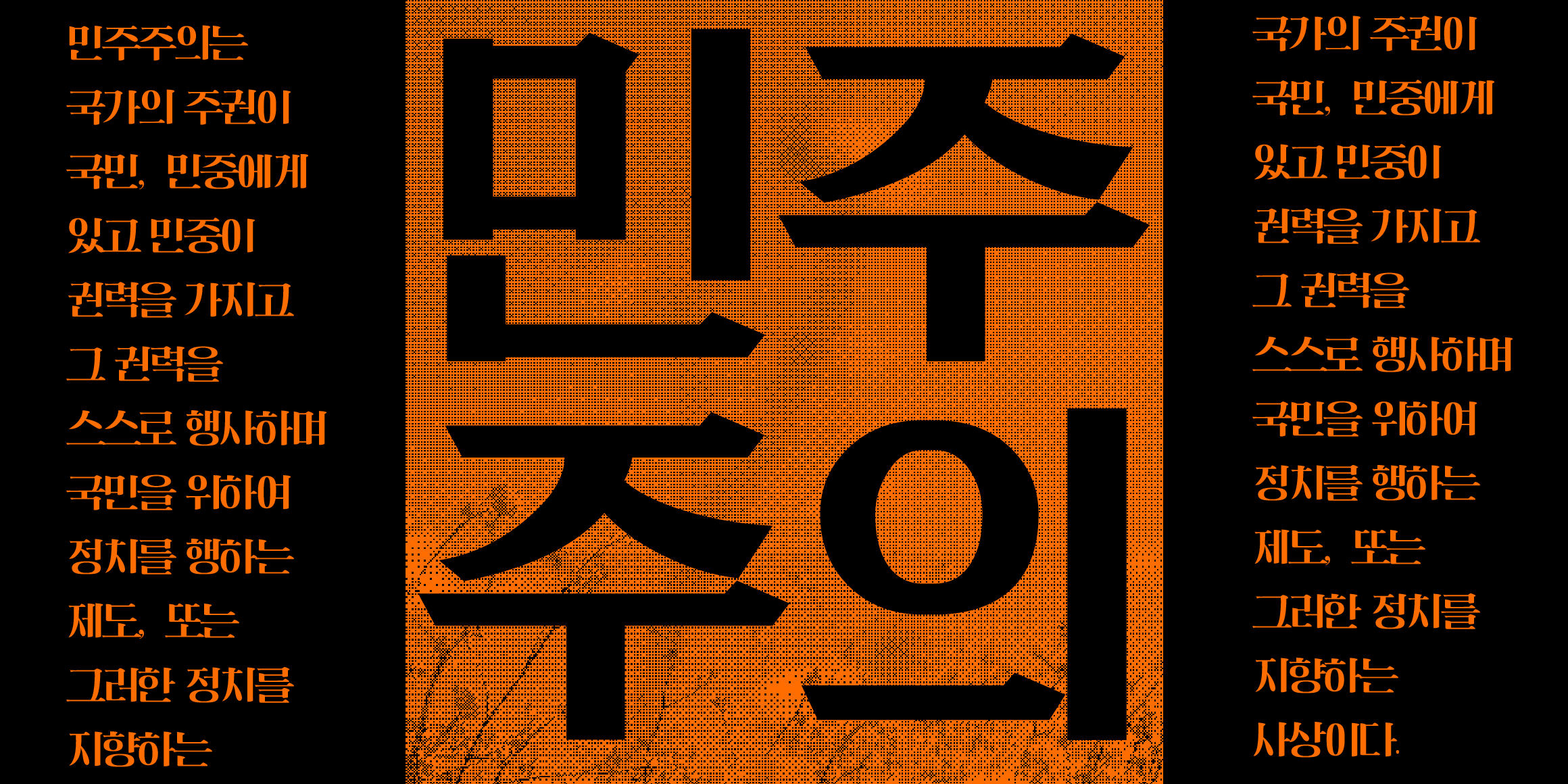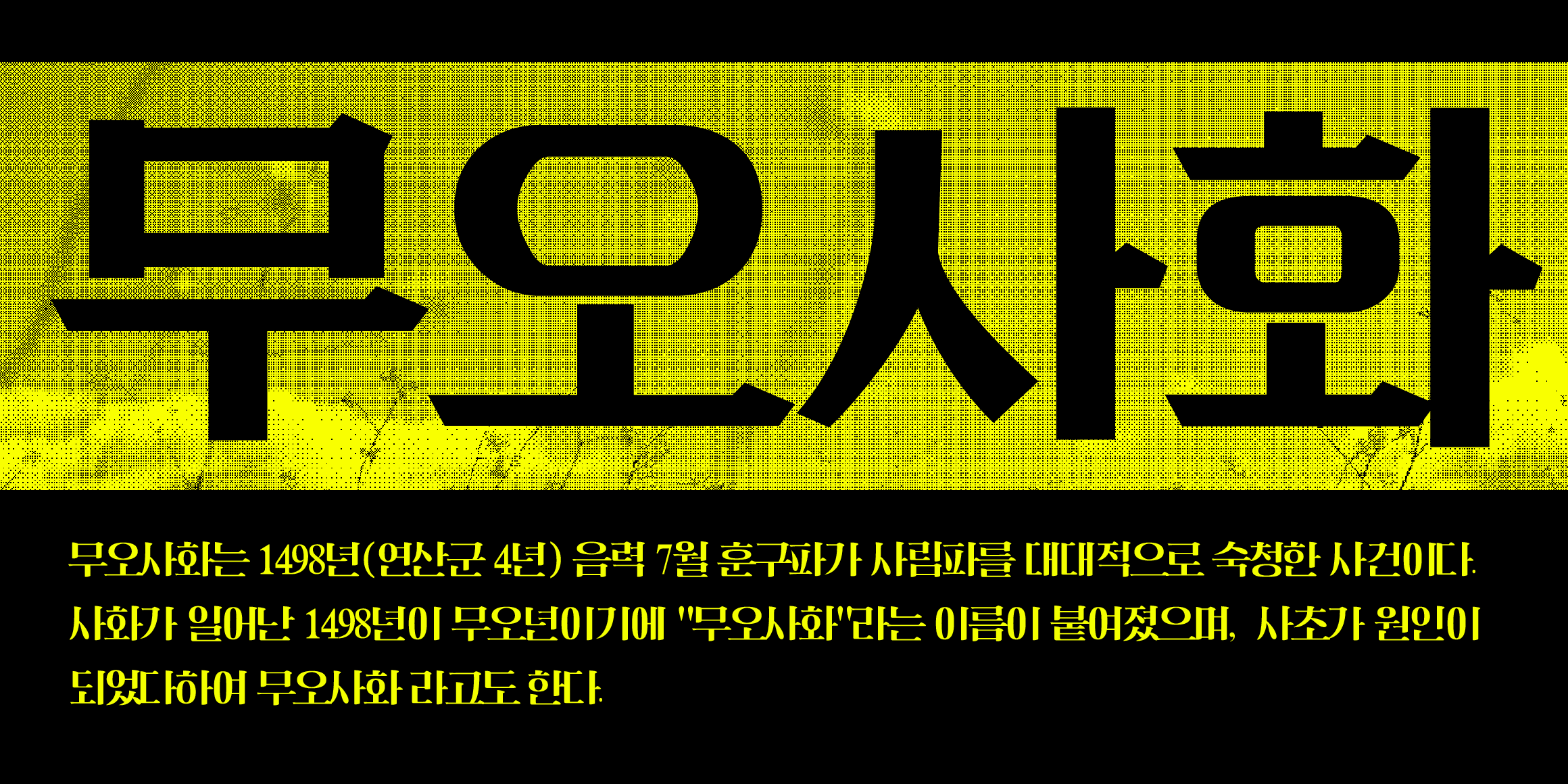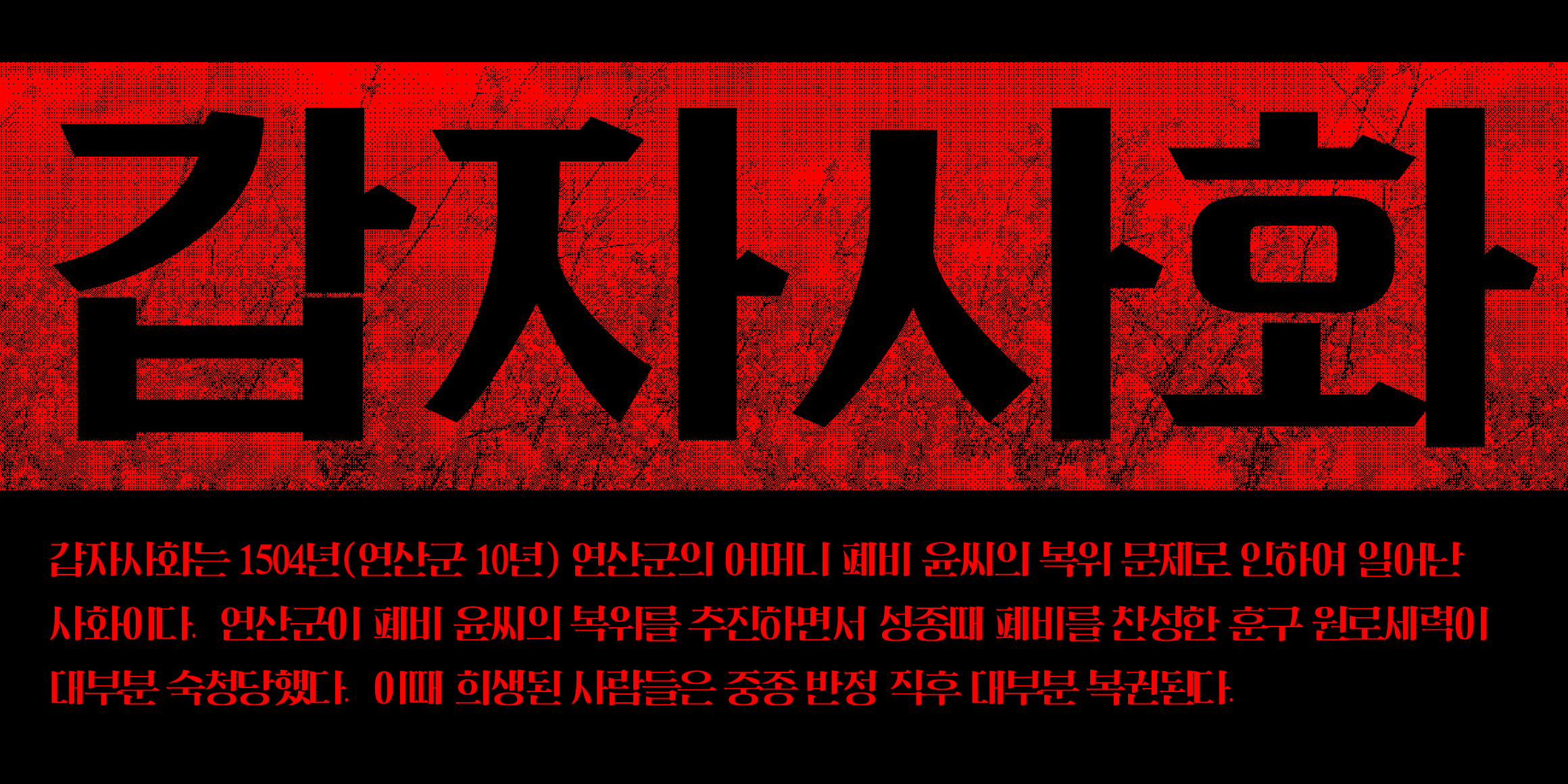
JYeonnamdongGothic is a typeface for titles that greatly expands the size of consonants, and features a mixture of old-fashioned chart and gothic bold fonts.
- J연남동고딕 / JYeonnamdongGothic